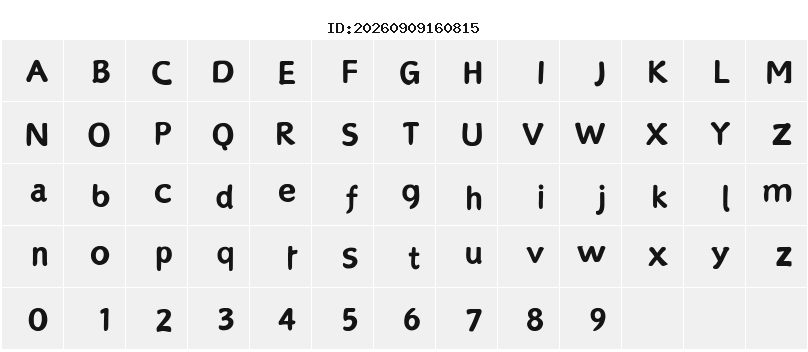
字潮正正榜 Preview
• Font Name: 字潮正正榜
• Full Font Name: 字潮正正榜
• Designer: 潍坊字潮文化传媒有限公司
About 字潮正正榜.TTF
字潮正正榜.TTF is a modern, elegant sans-serif font designed for ultimate readability and visual harmony. Perfect for branding, headlines, web design, and print materials.